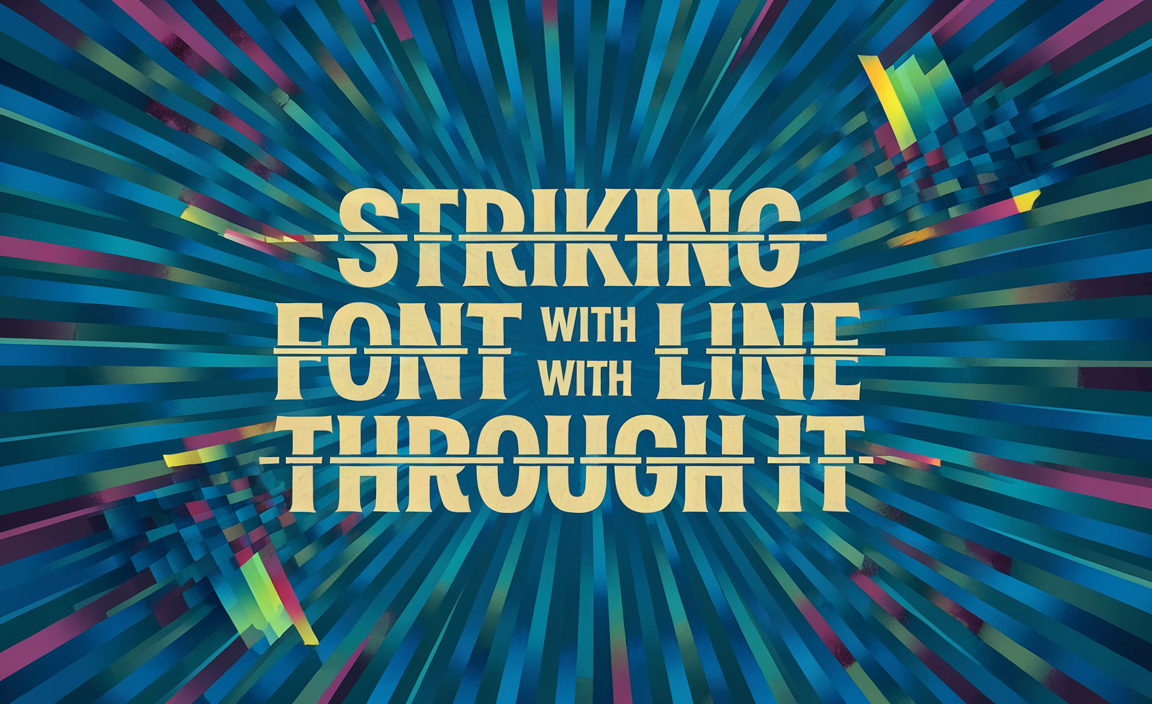
How to Use a Striking Font With Line Through It for Style
Strikethrough formatting adds flair and emphasis to text. It is one of the most popular and effective ways to convey meaning. Often referred to as crossed-out text or strikeout text, this effect brings a unique visual style to written communication.
Whether you’re editing a document or creating engaging content for social media, knowing how to use strikethrough text is essential. This content will explore how to use strikethrough text, various strikethrough styles, and even some handy strikethrough text generators.
Striking Font With Line Through It
What Is Strikethrough Text?
Strikethrough text refers to words or letters crossed out by a horizontal line, usually in the middle. This effect indicates deleted or changed content, corrections, or adds a specific aesthetic to designs. It is commonly used in word processors like Microsoft Word and Google Docs. The strikethrough effect is also popular in graphic design and digital content.
Strikethrough Formatting
You can apply strikethrough formatting to selected text in a document. Most word processors provide an easy way to access this feature. You can use a toolbar option or a keyboard shortcut to apply the effect. On Windows, the shortcut is often Ctrl + D, while on Mac, it’s Cmd + D.
Additionally, certain web-based text boxes and font style tools allow you to apply the strikethrough feature quickly.
In a word processor, you might be editing a document and want to indicate something that has been removed. Instead of erasing the text, apply the strikethrough style. This creates a visual cue that the text has been crossed out or deleted, without completely removing it.
How to Use a Strikethrough Text Generator
A strikethrough text generator is a powerful tool that allows users to create text with a line through it for use in various contexts, including social media, blogs, and online forums. Some popular strikethrough text generators can transform plain text into crossed-out text without needing special software. These tools often use Unicode characters to create the strikethrough font effect.
Using an online strikethrough text generator is simple:
1. Input your original text into the tool.
2. Choose the desired font style, including the strikethrough effect.
3. Copy the generated text, which will have the strike through it.
4. Paste it wherever you want, such as in a social media post or a Word document.
Strikethrough Text in Social Media
On social media, Facebook font generators and similar tools allow you to apply various effects to text. The strikethrough text effect can be especially useful in posts or comments to show changes or to humorously cross out words. Using strikethrough style in Facebook posts gives a sense of irreverence or edits, which users find engaging.
For instance, you can create something like:
• “I love pizza, but I’m giving up pizza for a week” becomes “I love pizza, but I’m giving up pizza for a week” using a strikethrough text generator.
Diacritical Marks and Strikethrough
Sometimes, diacritical marks, or the small signs added to letters in many languages to change the sound can be used alongside strikethrough text. The dotted line and wave line effects can also combine with strikethrough formatting to create unique textual representations. However, be mindful that the Unicode characters used for strikethrough may not always support all diacritical marks or styles.
The Role of Font Style in Strikethrough Effect
The choice of font style plays a crucial role in the effectiveness of the strikethrough effect. You can cross out normal text to indicate deleted or modified content. A strikethrough font, like Arial or Times New Roman, gives the text a more professional feel.
Fonts with thick strokes tend to make the line through more noticeable, whereas thin fonts might give a subtler effect.
Fonts like Verdana or Helvetica work well with strikethrough because they are clear and easy to read. However, more decorative fonts may make the strikeout text less legible, so it’s always best to use a clean and simple font style for professional documents.